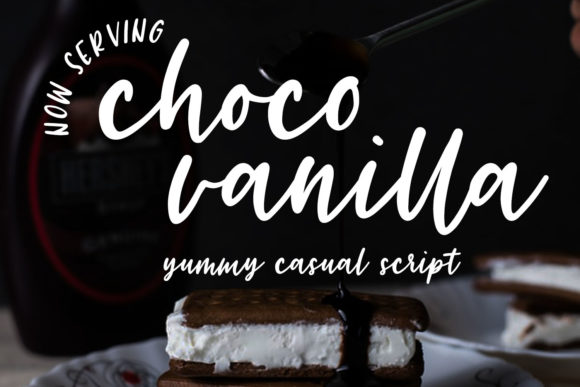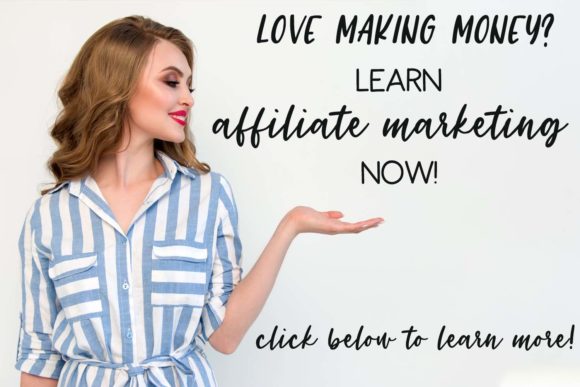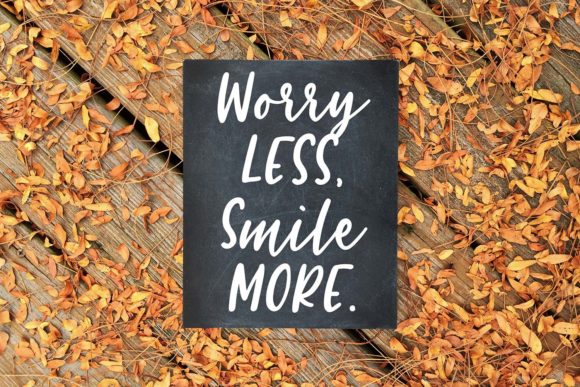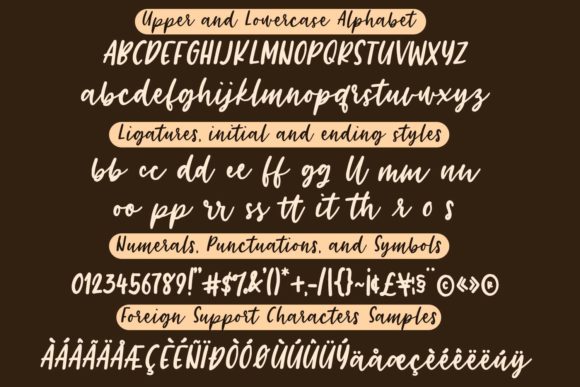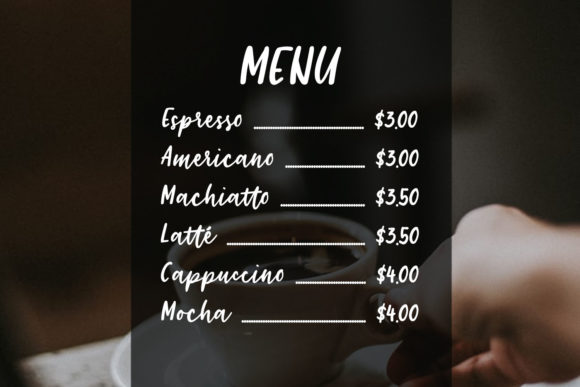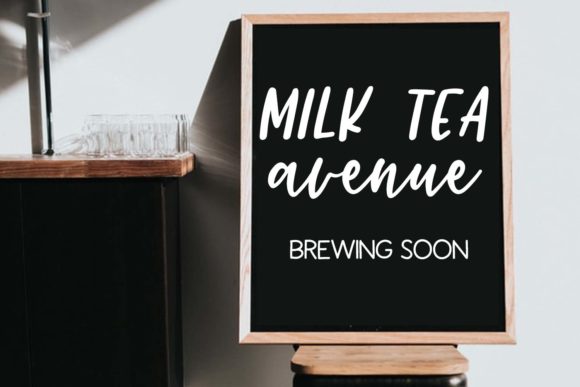
Choco Vanilla Font
About Choco Vanilla Font
Opposites Attract. Choco Vanilla perfectly balances its elegant and authentic side, delivering a script for the ages.